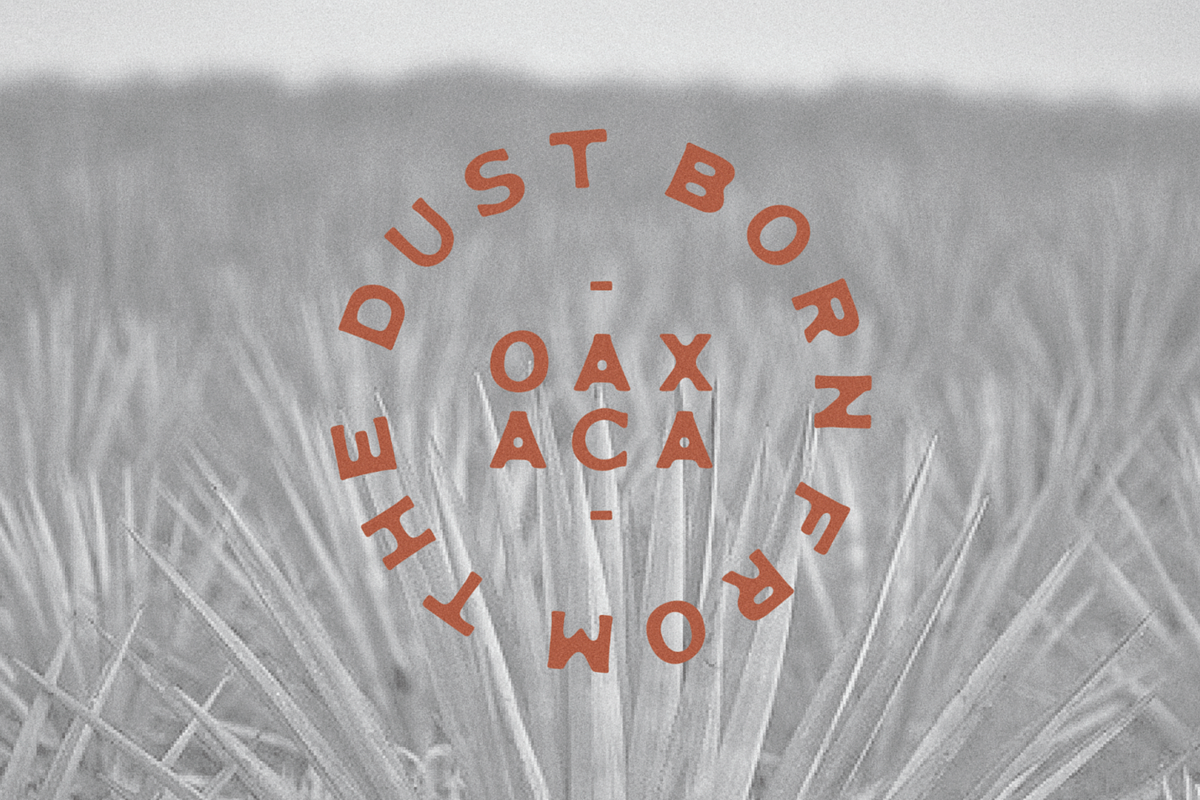
Oaxaca Font Free Download is a unique and stylish display typeface with strong, distinct letterforms. It combines both modern and traditional elements, making it perfect for a variety of design projects such as logos, posters, branding, packaging, and more. Its striking design ensures that it grabs attention and leaves a lasting impression.
Using the Oaxaca Font Free Download adds a bold and sophisticated flair to your typography. Whether you're working on a creative logo, promotional material, or any design requiring a contemporary yet timeless look, this font brings personality and elegance to your work.